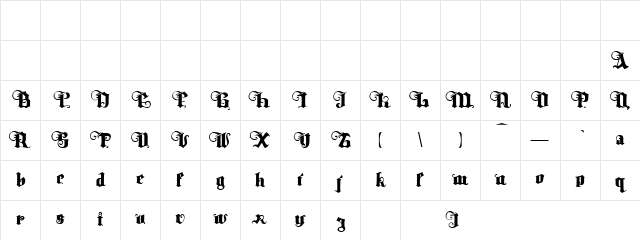
Tyrfing Demo Regular Free Font
Tyrfing Demo Regular
Design Context for Tyrfing Demo
Tyrfing Demo is a composed and adaptable typeface that performs quietly and consistently across a wide range of design contexts.